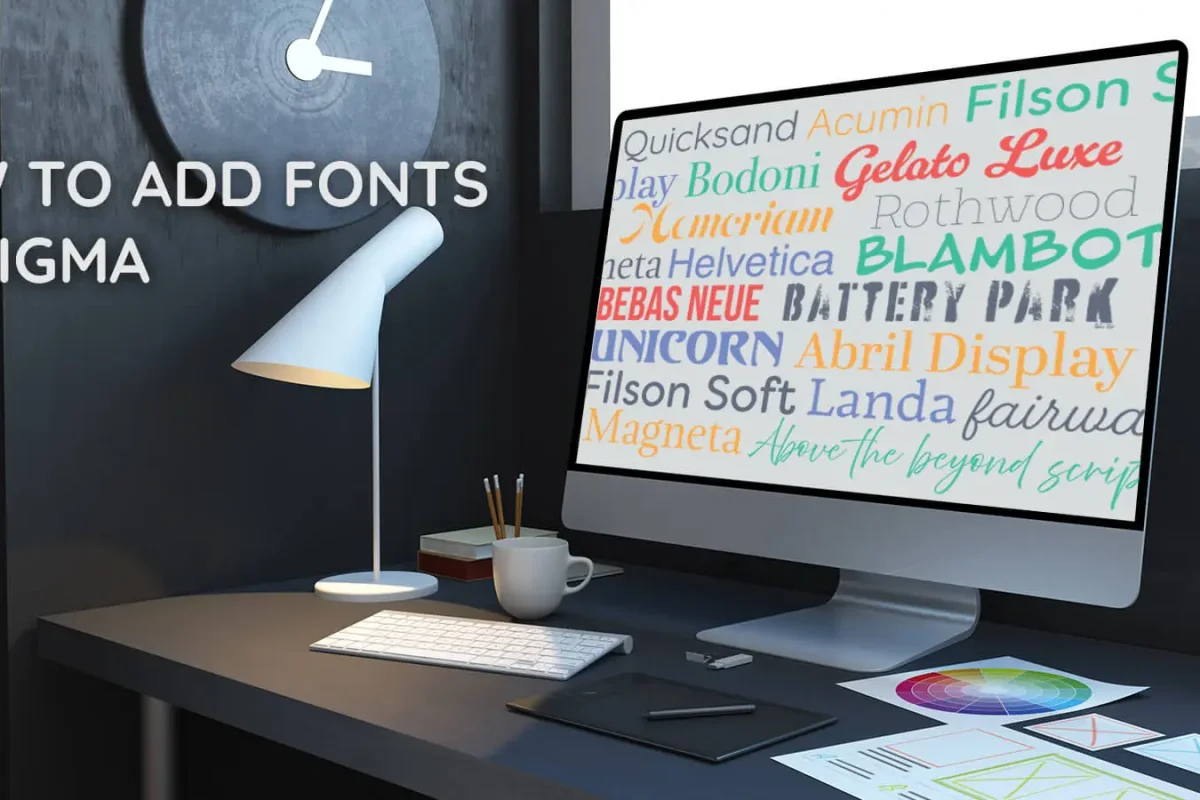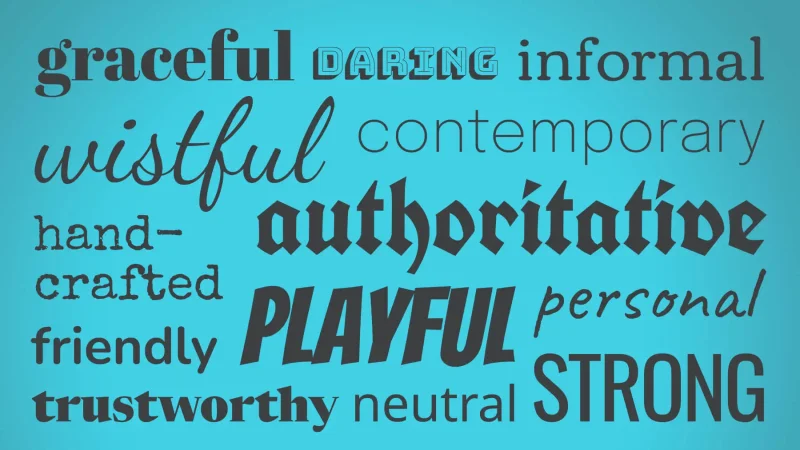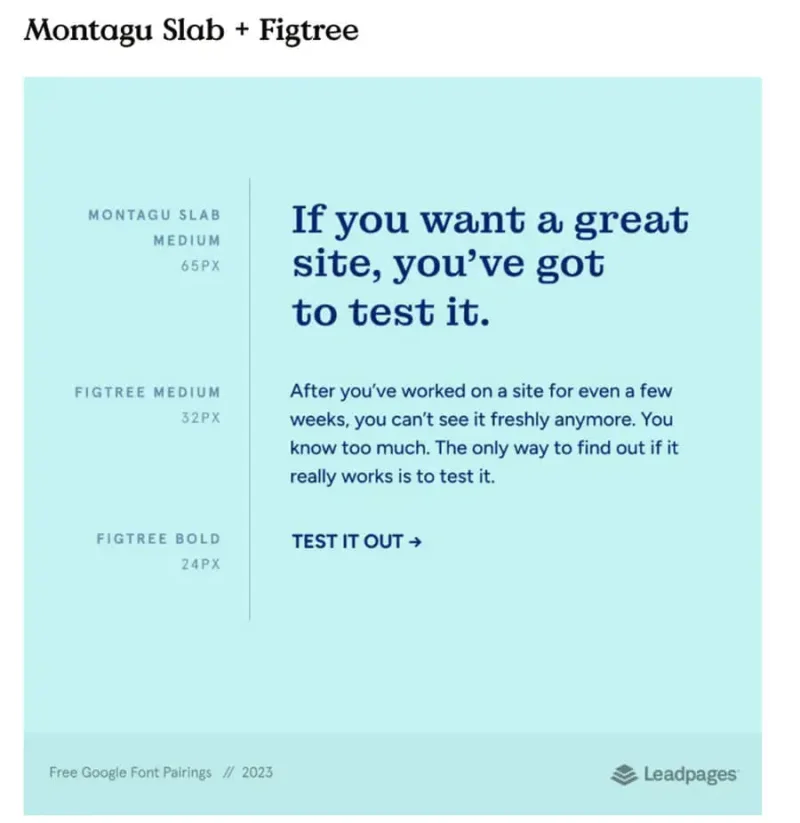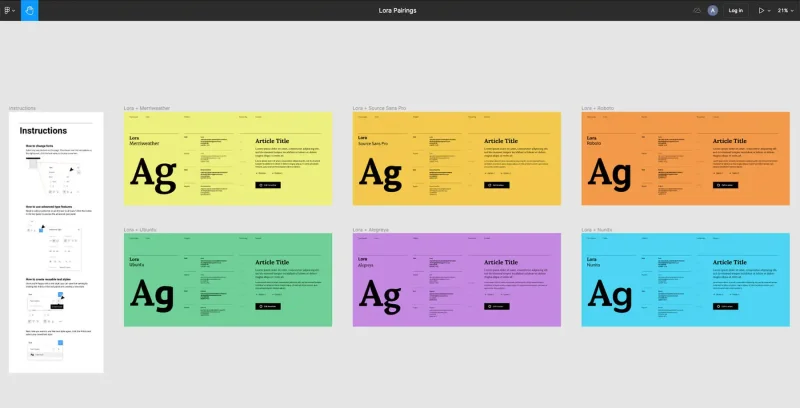
How to Add Fonts to Figma
Does your web or app design need some wow factor? Maybe your go-to font has starred in way too many of your projects? Time to add some new fonts to your repertoire!
In this post we’ll run though the basics of how to add fonts to Figma, where to find fonts, how to pick a good font, and how to match different fonts.
What fonts can I use in Figma?
A simple solution
This all sounds a bit technical, we just want a font that looks cool, right?! Fortunately, an easy way of finding fonts that meet the above criteria (and are also free!) is to use Google fonts.
How to choose fonts in Google Fonts
As there are thousands of fonts available on Google Fonts you may want to limit your browsing options by using the ‘Filters’ button. This will let you select things like language, decorative stroke, classification, and properties.
What’s a serif, what does monospace mean? These are typographic terms used to define and group typefaces into categories. Just click on them to see what comes up. If you're interested in expanding your knowledge of type and fonts, check out this article on type classifications.
If you are still daunted by how to choose a typeface, google fonts itself has some great tips on choosing type.
A selection of words written in different fonts to illustrate how a font can imply personality
Fonts have personalities of their own and your choice of font says a lot to your audience
Once you have found a font that is aligned with the message and sentiment you are aiming to convey, click into the font to explore in more detail. Here you can type your own text to see it previewed in the font and also see all of the styles in that family. Click ‘Get Font’ to download, and then you are ready to add your font to Figma.